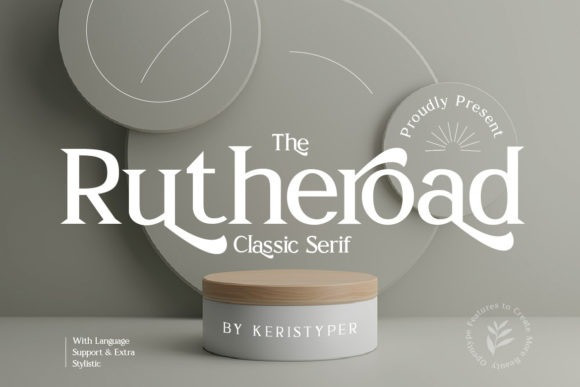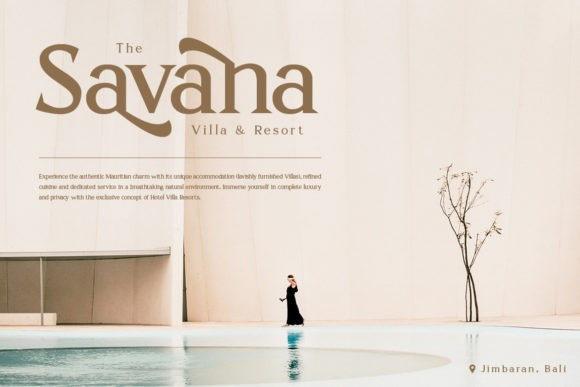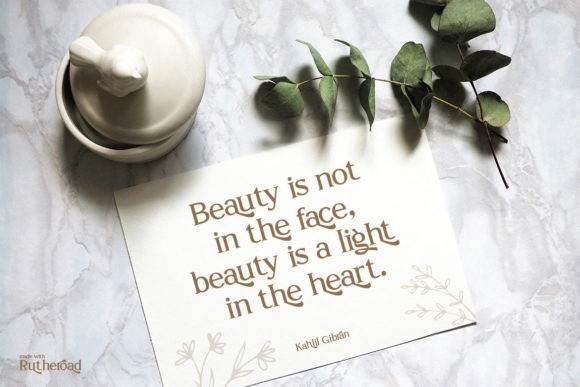
Rutheroad Font
Rotheroad is an elegant classic serif font with a touch of minimalist modern style. This font is good for logo design, Social media, Movie Titles, Books Titles, short text even long text letters, and good for your secondary text font with sans or serif.